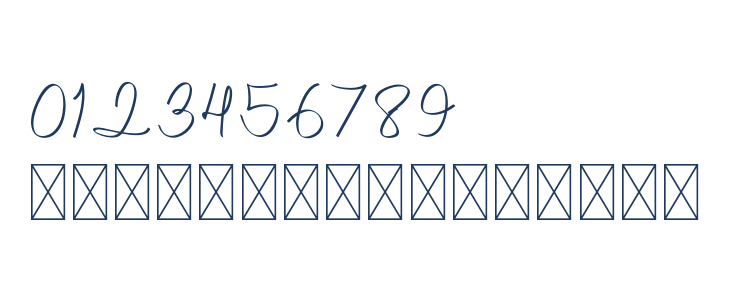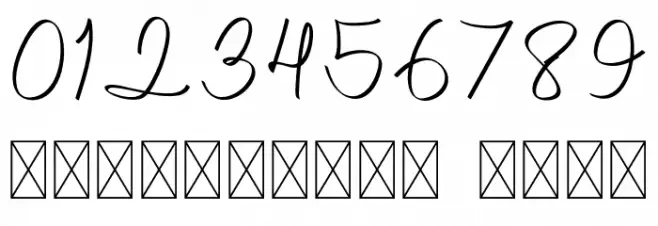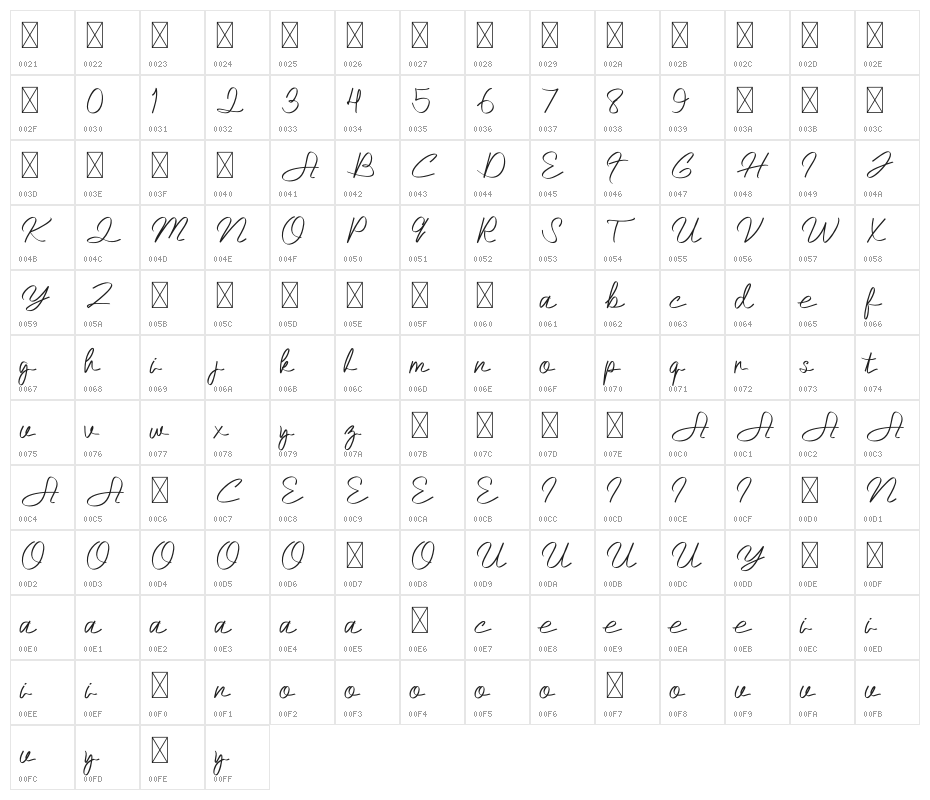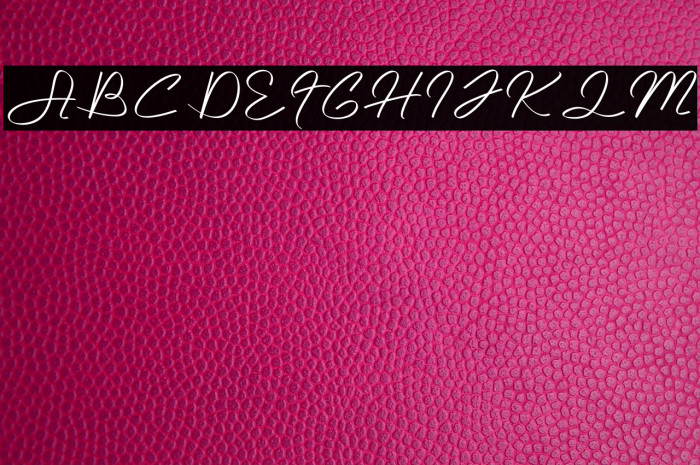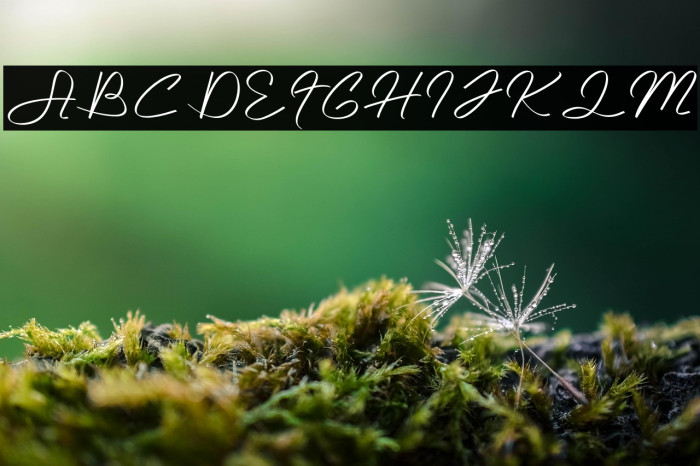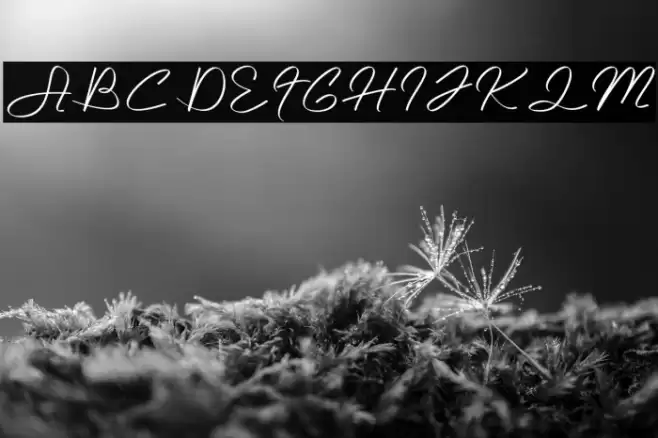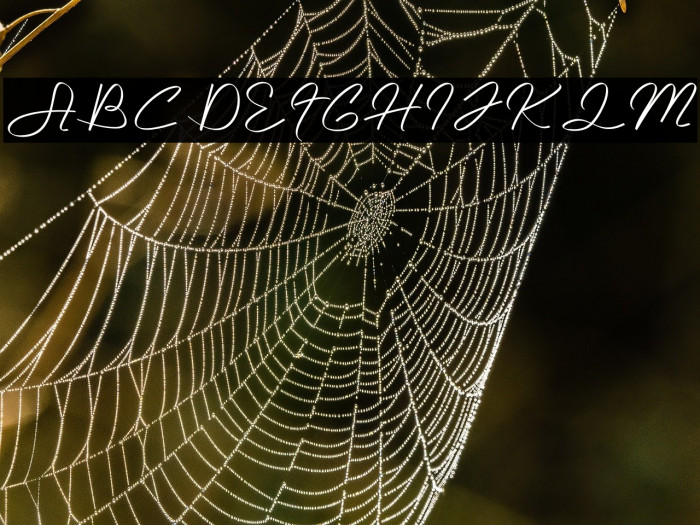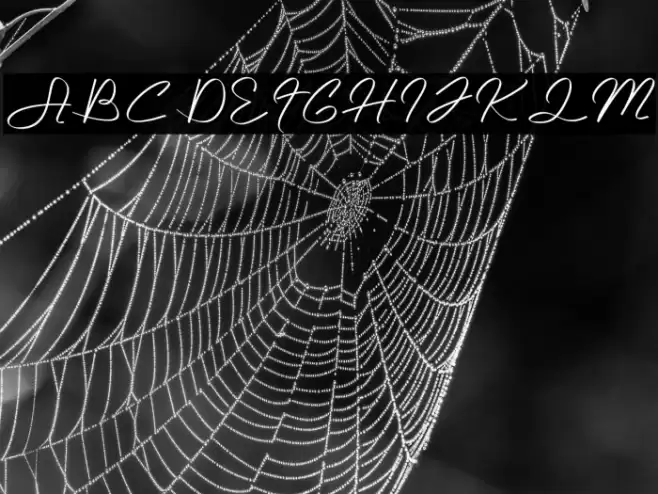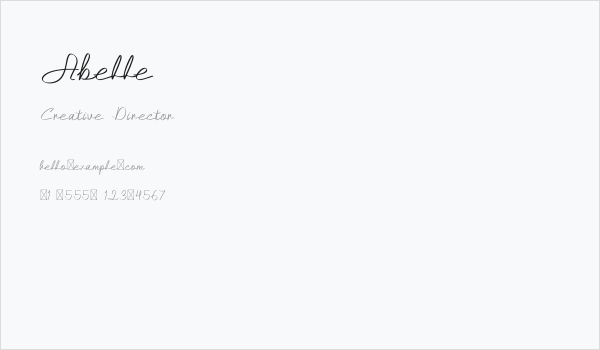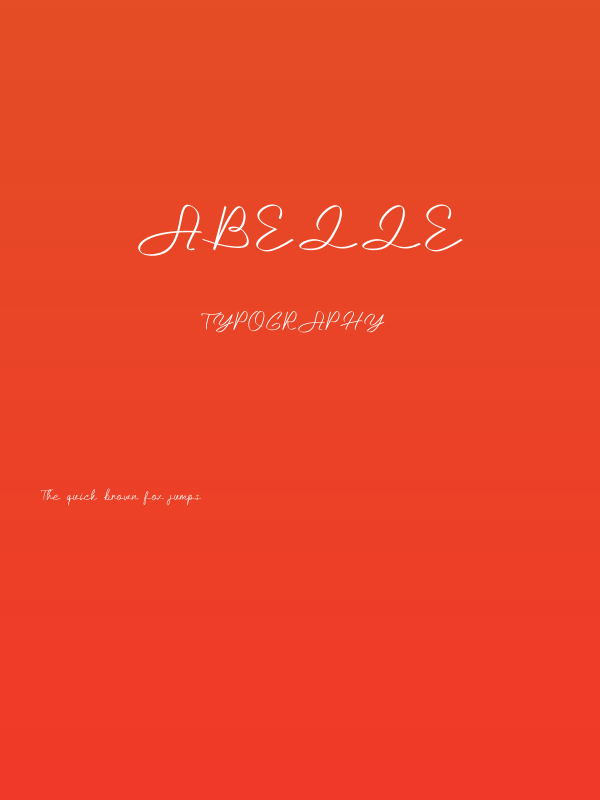
Abelle Font
Abelle Description
This font features a fluid and elegant script style, characterized by its smooth, flowing lines and cursive letterforms. The uppercase letters are slightly more structured, maintaining a consistent height, while the lowercase letters exhibit a more playful and dynamic appearance with varying heights and loops. The numerals are designed to match the overall script style, maintaining the same fluidity and elegance. The special characters are integrated seamlessly, ensuring they complement the overall aesthetic. This font exudes a sense of sophistication and grace, making it ideal for projects that require a touch of elegance.
| Proposed Projects | Ideal for wedding invitations, elegant branding, personal stationery, and decorative projects. |